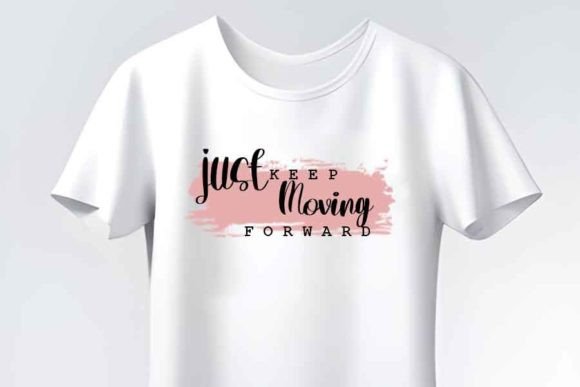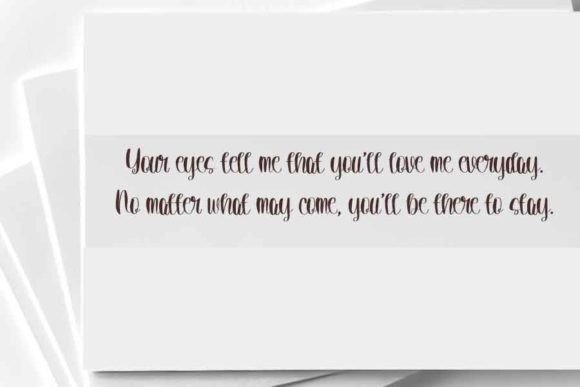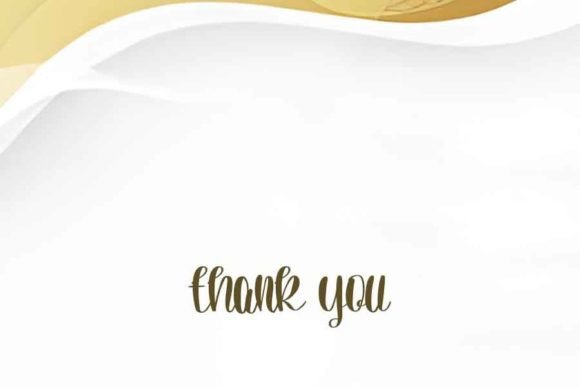
The Joy of Handwritten Design: Discovering the Homemade Font
Who hasn’t scribbled out a heartfelt message to a loved one, or crafted a whimsical doodle to brighten up a dull day? As creatives, we’re often drawn to the personal touch that comes with handwritten elements. That’s exactly what the Homemade Font embodies – a simple, joyful, and ravishing handwritten font that adds a touch of personality to any design.
This versatile font is designed to adapt to a wide range of formal or informal designs, making it an ideal choice for designers looking to add a personalized style to their work. Whether you’re creating wedding invitations, thank you cards, or logos, the Homemade Font is sure to bring a sense of warmth and approachability to your designs.
Key Features of Homemade Font
- Unique characteristic: Hand-drawn, distressed aesthetic with subtle texture and imperfections, giving it a personal and artistic feel.
- Comes with a comprehensive set of glyphs, including ligatures, swashes, and ornaments, for added creativity and flexibility.
Designer Review: Homemade Font
As a designer, I was intrigued by the “Homemade Font” – a free, open-source font that promises a unique and quirky aesthetic. ✨ Let’s dive in and see what it has to offer!
- The font’s playful, handwritten feel is perfect for creative projects and branding that needs a personal touch.
- The font’s imperfections and irregularities add a touch of whimsy and character that’s hard to find in more polished fonts.
- The font is highly customizable, allowing designers to adjust the weight, spacing, and even the “handwriting” style to fit their needs.
- ⚠️ The font’s irregularities can also make it difficult to read, especially in long blocks of text or at small sizes.
- ⚠️ The font’s limited character set may not be suitable for projects that require a wide range of special characters or languages.
- ⚠️ The font’s open-source nature means that it may not be supported or updated as regularly as commercial fonts.
Overall, I think the “Homemade Font” is a great choice for designers who want to add a touch of personality to their projects. While it may not be suitable for every project, it’s a great option for those who need a unique and quirky font that’s easy to customize. With a little care and attention, this font can be a real showstopper!
Alternatives to Homemade Font
Comparison: Oswald has a more geometric and modern look compared to Homemade Font, which has a more handmade feel. Oswald is better suited for digital and print materials where a clean and modern look is desired.